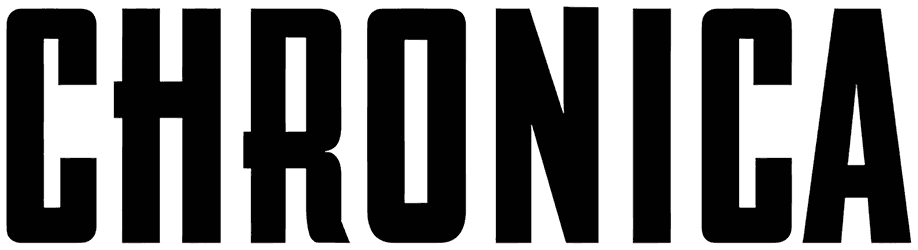
Chronica Font
Sometimes, a retro font like Chronica will be the best promotion for vintage or modern designs. This typeface supports three versions: simple and 3D blocky. For many creative designs such as posters, logos, covers, and other the same items, Chronica can make them bold and salient even with no offer for lowercase letters.